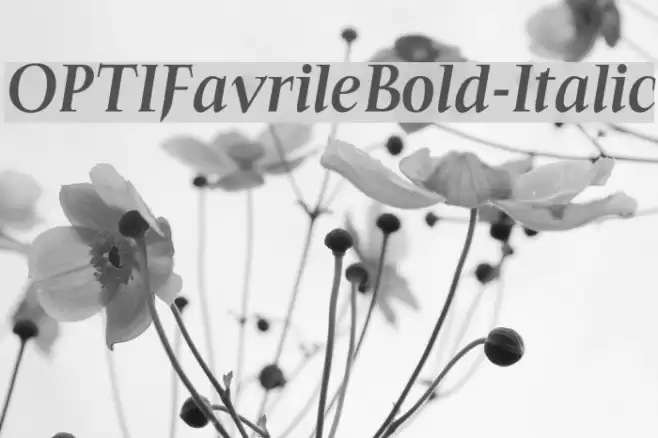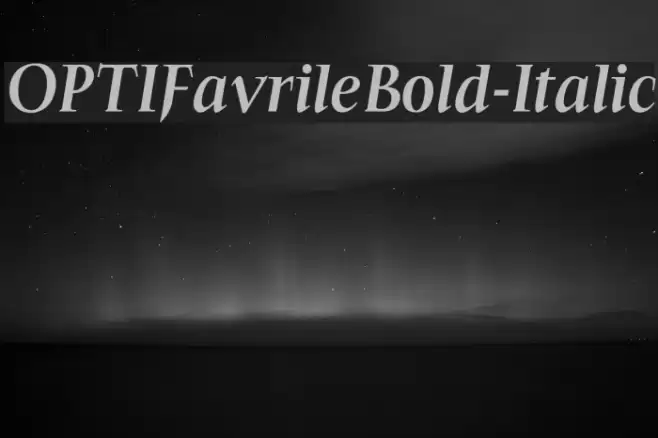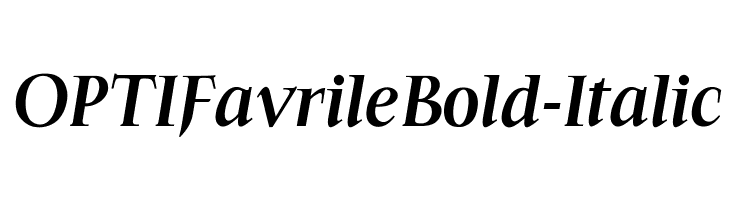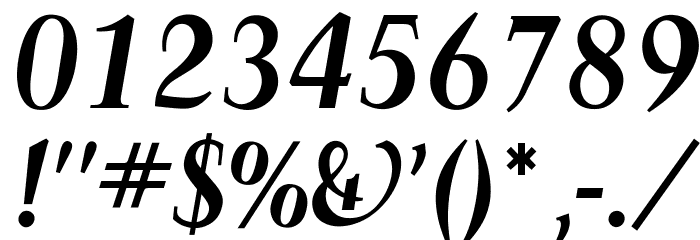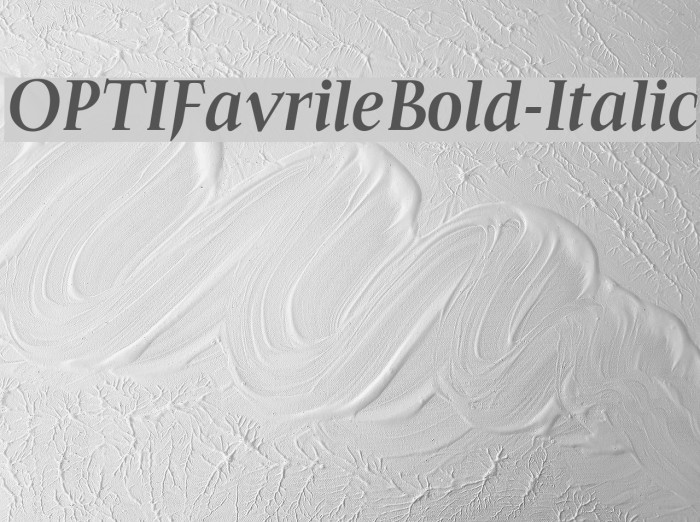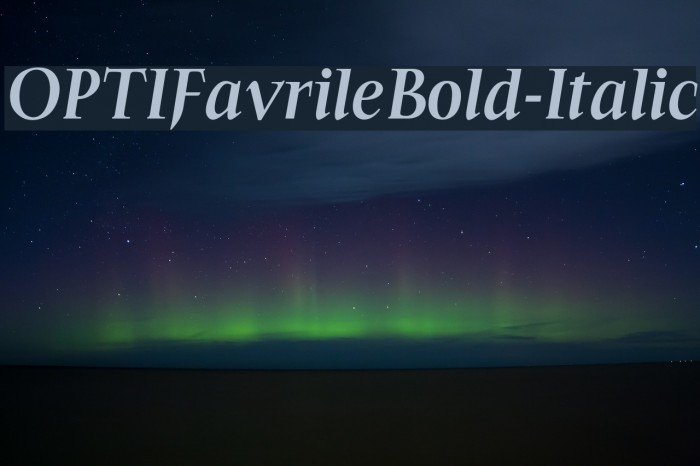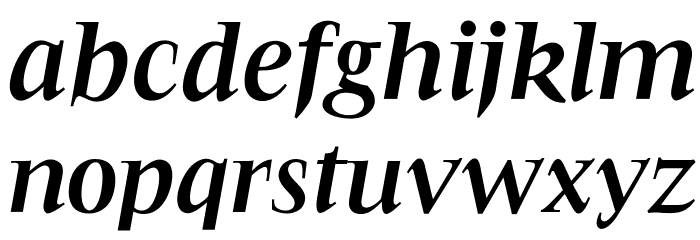
OPTIFavrileBold-Italic Font
OPTIFavrileBold-Italic Description
This font exhibits a sophisticated and elegant style with a distinct italic slant, enhancing its dynamic appearance. The bold weight adds a strong presence, making it suitable for impactful designs. The characters are well-defined with smooth curves and sharp serifs, providing a classic yet modern aesthetic. The numerals and special characters maintain the same stylistic features, ensuring consistency across all glyphs. The overall design is balanced, with moderate contrast in stroke thickness, contributing to its readability and visual appeal.
An elegant, bold italic serif font with a classic yet modern style from Uncategorized fonts.
- Proposed Projects: Ideal for luxury branding, editorial design, book covers, and elegant invitations.
- Overall Style: Classic